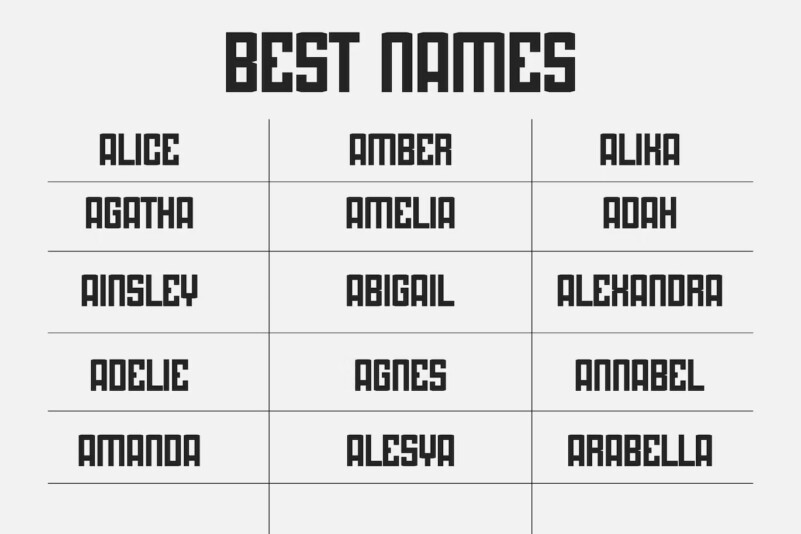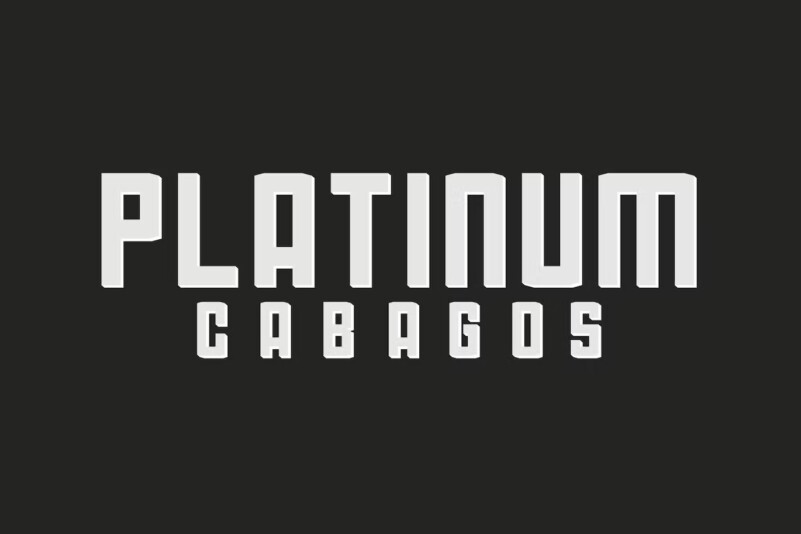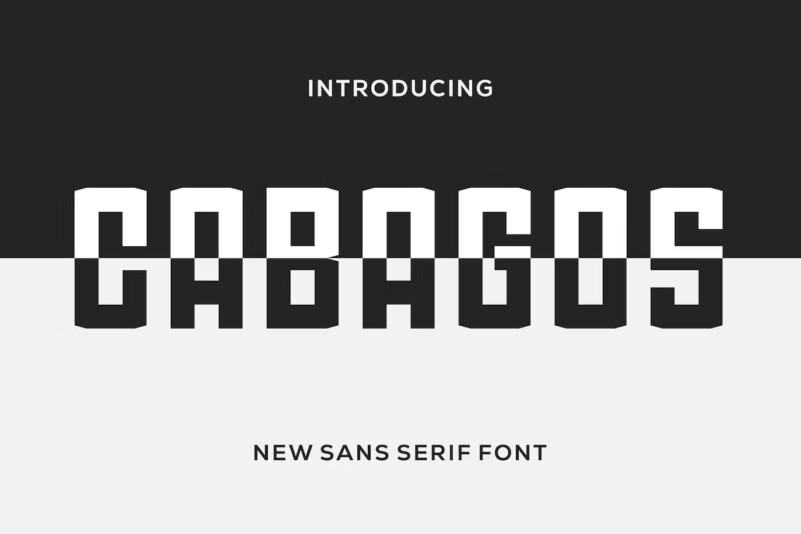
Cabagos font
Cabagos Font – The Cabagos font is an elegant and authentic display font. This font is suitable for any branding projects such as logos, t-shirt printing, esports and many more. extraordinary in many contexts.